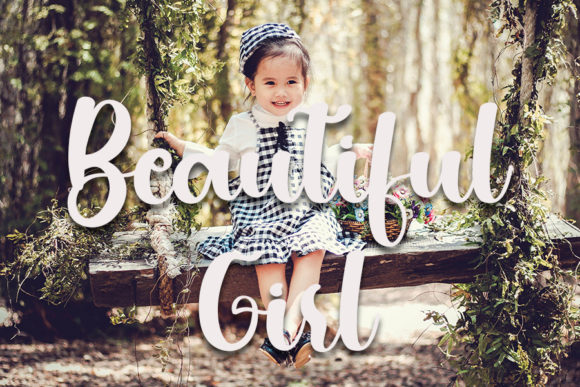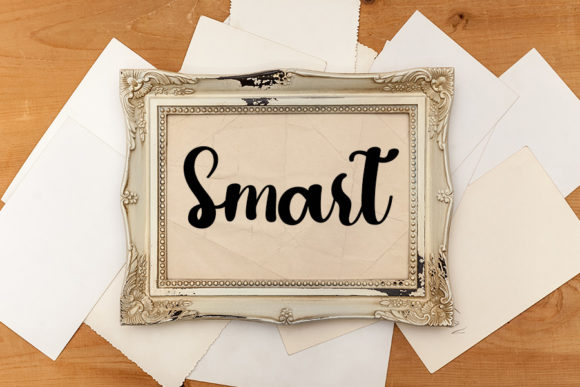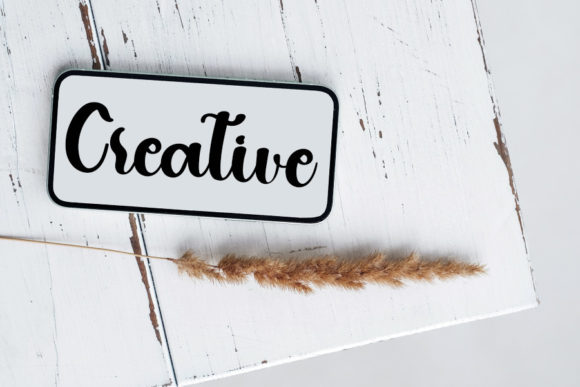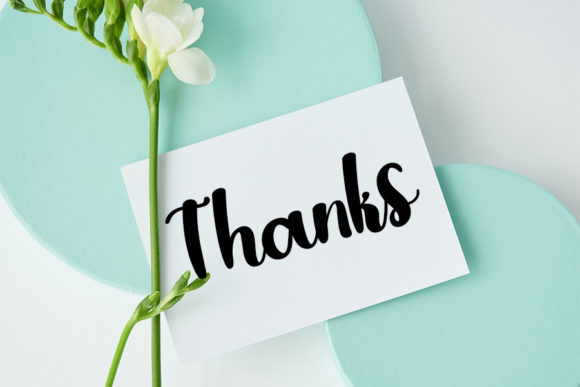
Hello Farmhouse Font
About Hello Farmhouse Font
Hello Farmhouse is a delightful handwritten font that goes beyond being a mere typeface; it’s a carefully crafted design element intended to become an instant favorite. With a blend of friendly charm and classically inspired calligraphic influences, Hello Farmhouse strikes a perfect balance between timeless elegance and a contemporary, fresh aesthetic.
At its core, Hello Farmhouse radiates a friendly and approachable vibe. The meticulous design process ensures that every stroke carries a sense of warmth, making it an ideal choice for projects that aim to create a connection with the audience. The font’s handwritten style adds a personal touch, inviting users to engage with the text on a more intimate level.
The calligraphic influences in Hello Farmhouse add a touch of sophistication to its overall appeal. Each curve and line is thoughtfully designed, contributing to a harmonious visual experience. This infusion of classic calligraphy enhances the font’s versatility, allowing it to seamlessly adapt to a variety of design contexts while maintaining its intrinsic charm.
What sets Hello Farmhouse apart is its ability to feel both familiar and contemporary. While paying homage to timeless calligraphic styles, it introduces a fresh and modern twist that breathes new life into the handwritten genre. This duality makes Hello Farmhouse a versatile choice, suitable for a wide range of applications, from casual branding to formal event invitations.
Hello Farmhouse is more than just a font; it’s an embodiment of a friendly and contemporary handwritten style. Its careful design, combining classic influences with a modern edge, positions it as a versatile and beloved option for various design projects. Whether used for branding, invitations, or any creative endeavor that requires a personal and stylish touch, Hello Farmhouse stands ready to become a cherished favorite in the world of typography. Embrace the charm and versatility of Hello Farmhouse as it adds a touch of personality and elegance to your designs.